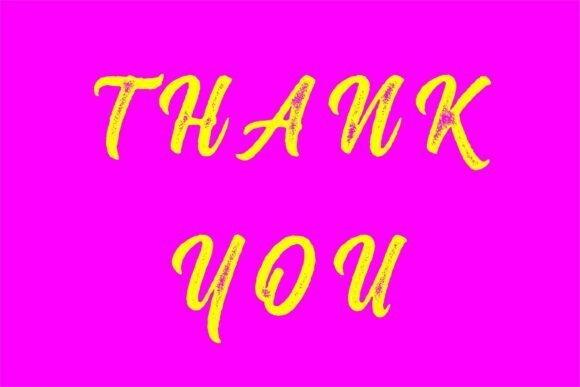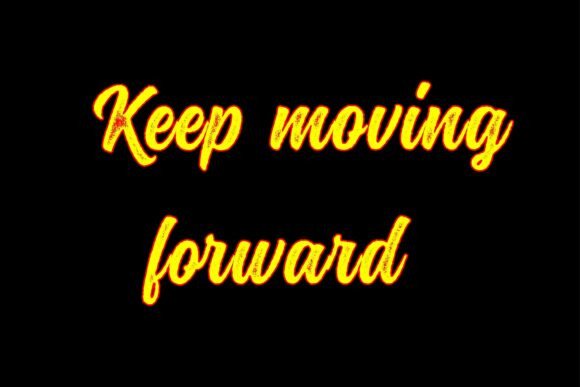
Introduction to Montana Rough Font
Remember the moment when you stumbled upon that perfect font that instantly elevated your design project? For many creatives, that moment is what makes all the hard work worth it. For designers, having access to high-quality design resources is crucial in bringing their vision to life. Among these resources, the Montana Rough Font stands out as a game-changer.
This free download has taken the design community by storm, and for good reason. With its smooth flowing strokes and casual handwritten style, the Montana Rough Font adds a touch of personality and character to any creative project. Its clean and easy-to-read design makes it perfect for branding, logos, quotes, and social media posts. Whether you’re working on a digital or print project, the Montana Rough Font is a versatile tool that can help you achieve your design goals.
With its transparent background and PUA encoding, this font is a must-have for any designer looking to add a unique touch to their work. In this article, we’ll dive deeper into the world of Montana Rough Font and explore its features, benefits, and uses in various design projects.
Key Features of Montana Rough Font
- Unique, hand-drawn design with a distressed look, ideal for creative projects requiring a high-quality, free download font.
- Transparent background, making it easy to combine with other design elements or images.
- High-resolution font, suitable for large-scale designs, such as billboards or signage, with a resolution of 300 DPI.
- Designed to be a versatile design resource, suitable for a wide range of creative projects, from logos to typography-based art.
Honest Review: Montana Rough Font
I recently had the opportunity to work with the Montana Rough Font, a free download that’s quickly become a go-to design resource for me. This high-quality font is perfect for any creative project that requires a touch of rugged elegance.
- ✨ The Montana Rough Font has a unique, hand-drawn look that adds a touch of personality to any design.
- ✨ The font is incredibly versatile, working well in both digital and print applications.
- ✨ The transparent background makes it easy to use as a layering tool or as a standalone element in your design.
- ⚠️ The font is a bit on the heavier side, so it may not be the best choice for large blocks of text.
- ⚠️ Some of the characters may require a bit of tweaking to get them looking just right, but overall, the font is well-made and consistent.
Overall, I’m really impressed with the Montana Rough Font. It’s a high-quality design resource that’s perfect for adding a touch of creativity to your projects. While it may have a few limitations, I think it’s well worth the free download – and I’ll definitely be using it again in the future.
Montana Rough Font
The Montana Rough Font is a high-quality, free download font perfect for any creative project. Its unique texture and rugged feel make it ideal for use in various design applications.
Tips for Getting the Most Out of Montana Rough Font
To get the most out of the Montana Rough Font, consider the following tips:
Use a transparent background to give your text a clean and modern look.
Combine the font with other design elements, such as images or graphics, to add depth and interest.
Experiment with different font sizes and colors to create a visually appealing effect.
Common Use Cases for Montana Rough Font
The Montana Rough Font is perfect for use in a variety of creative projects, including:
Event invitations and announcements.